Fonts on Friday: Nothing Fancy
What better time to round up new typefaces than on Friday. Not only is “Fonts on Friday” alliterative, but showcasing new fonts also seems like a good way to end the week.
I’m in a plain-speaking, no-frills mood today, so I’ve chosen sans-serif fonts with those same characteristics. That’s not to say that Regular and Prosto aren’t beautiful fonts — they most certainly are — but they’re genuine enough to become your go-to typefaces.
Gosh I love this font’s name. It suggests utility and pragmatism. It’s the kind of font you’d let your kid sister date. Yet Regular is by no means ordinary. It adapts easily to text- and headline-sizes. The examples below show how impressive it looks in large sizes.
According to developerA2-Type, the inspirations for Regular are “the popular hot metal fonts — Memphis, Karnak, Stymie, and Futura.” The family consists of seven weights and 14 styles.
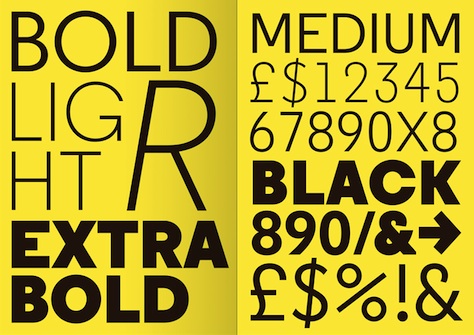
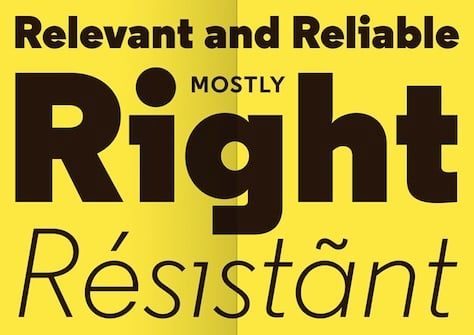
The other unadorned typeface I’m drawn to this week is Prosto, which means, simply, “font” in Russian. Prosto is part of a collection of free fonts developed by 26-year-old Ivan Gladkikh (Jovanny Lemonad), whose ambition is to quit his day job to devote himself to designing and distributing free fonts around the globe as a kind of humanitarian act. (He’s aiming for a stipend of $55,000 to complete this goal. Go to his site to find out more or to sponsor him.
I really like the lowercase letters in Prosto, by the way.